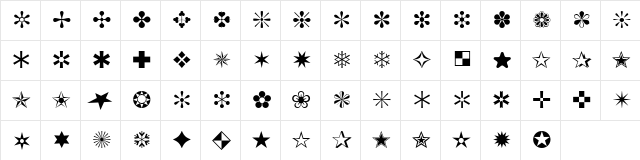
ZapfEssentials LT Ornaments Regular
| Designer | Hermann Zapf |
Design Context for ZapfEssentials LT Ornaments Typeface
ZapfEssentials LT Ornaments brings ornamental detail and strong personality to headlines and identities, where visual impact matters more than quiet functionality. Its slender proportions lend an understated elegance to any composition.
Font Pairing: Pair with a clean neutral sans-serif for body copy to let ZapfEssentials LT Ornaments's character lead without overwhelming the composition.
Pro Tip: Treat ZapfEssentials LT Ornaments as the centrepiece of your typographic hierarchy. One strong heading set in a decorative face can carry an entire layout.